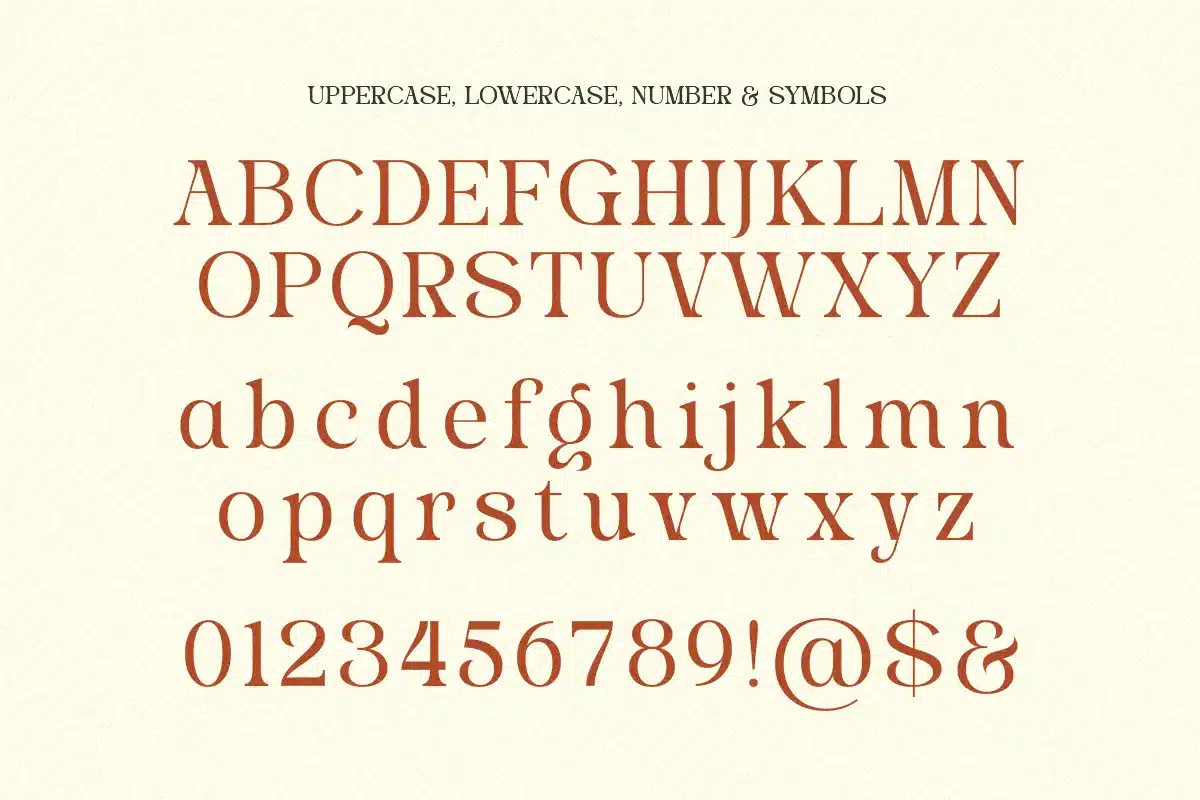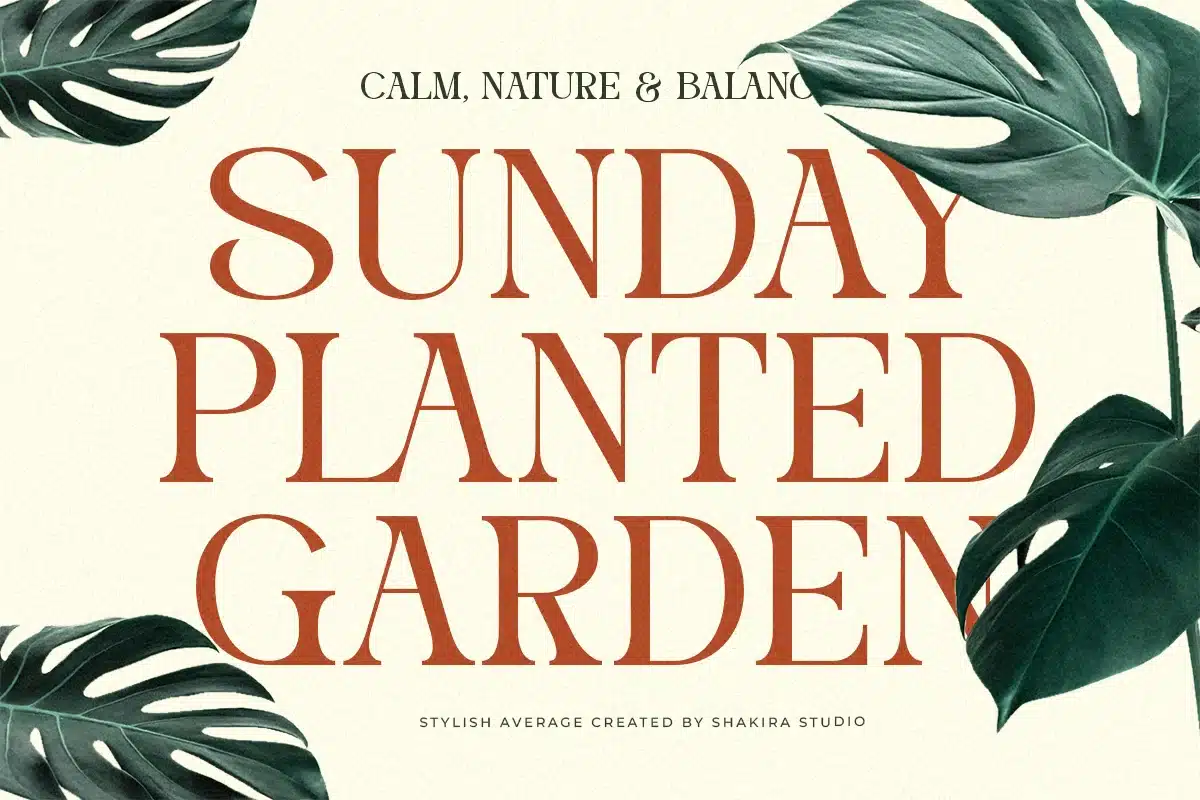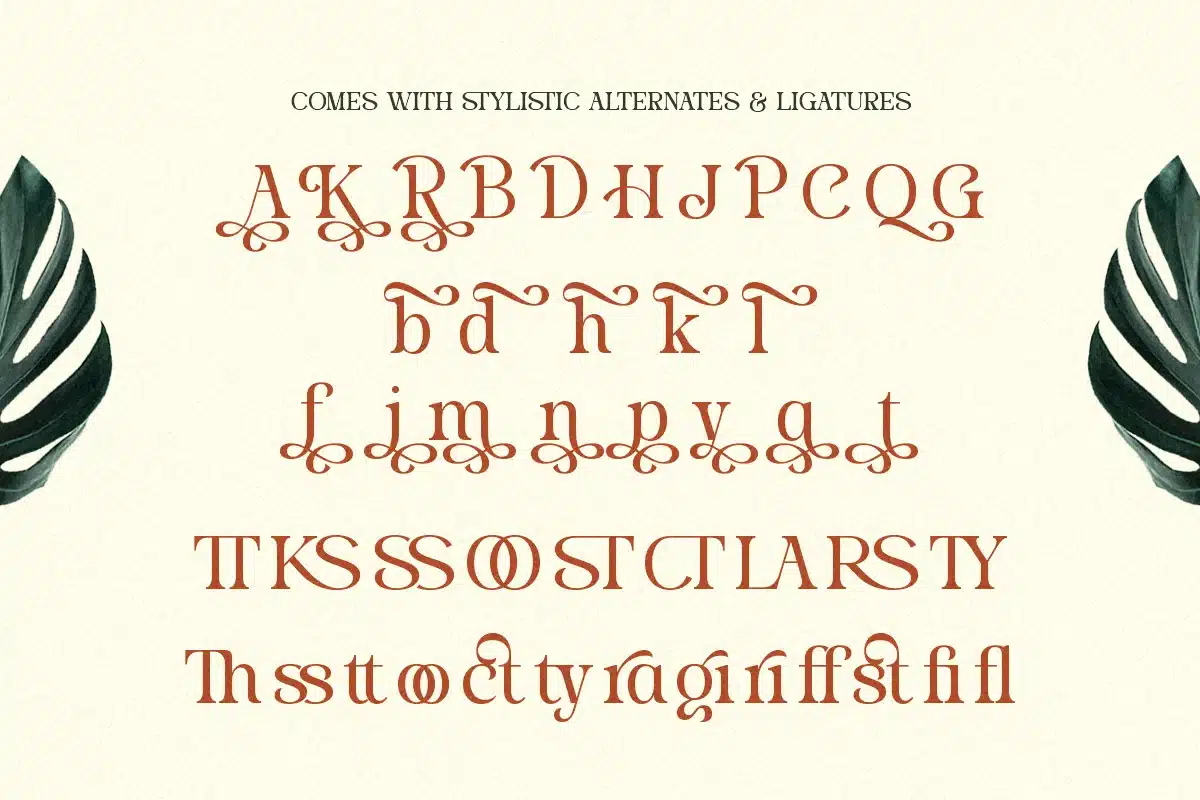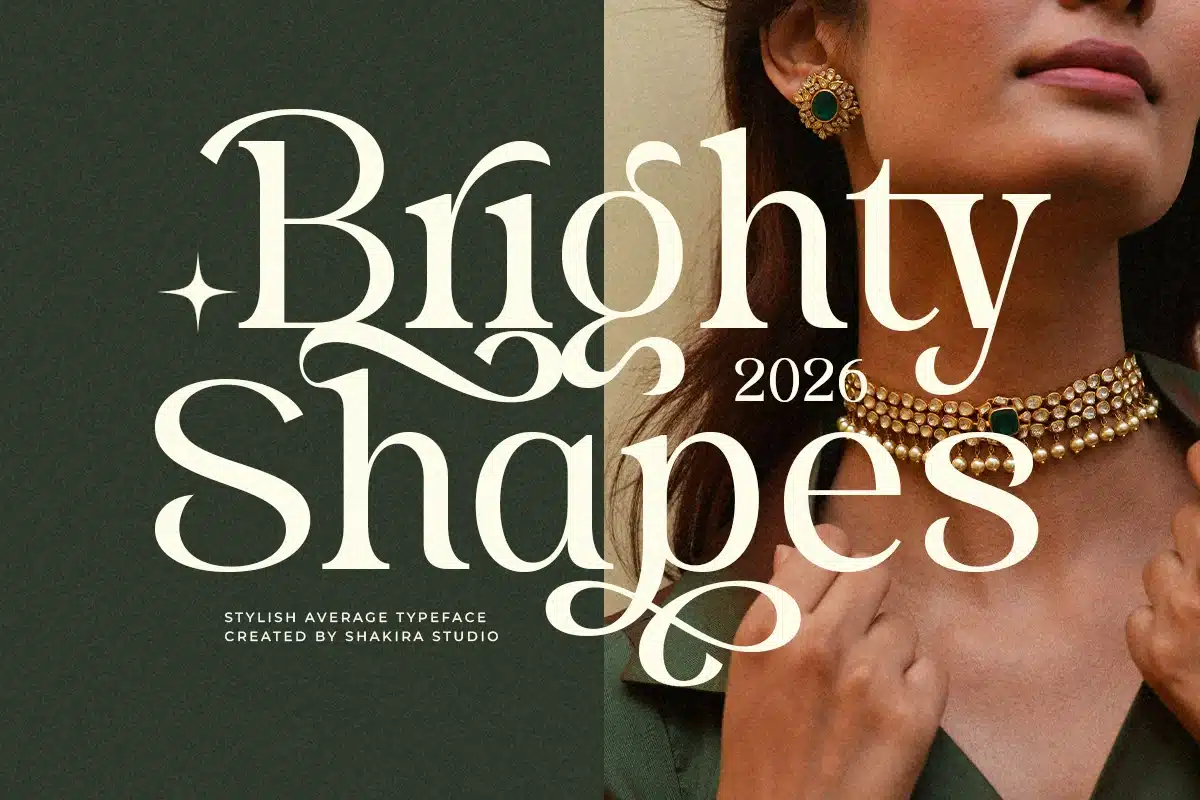
Modern Elegant Alternates – Stylish Average Font
Stylish Average is a modern elegant serif typeface designed for refined branding and stylish editorial layouts. With graceful curves, balanced proportions, and sophisticated ligatures, it delivers a luxurious and contemporary typographic voice.
Its stylish character makes it perfect for fashion branding, magazine headlines, beauty packaging, and premium logos. Stylish Average blends elegance and readability to create timeless visual identity systems.
Designed for creatives who want a stylish and confident serif with modern appeal.
- Uppercase & lowercase
- Regular & Italic
- Alternates & ligatures
- Professional kerning
- Elegant contrast letterforms
Fashion branding, editorial design, luxury logos, boutique identity, beauty packaging, wedding branding.